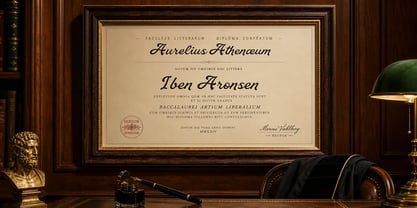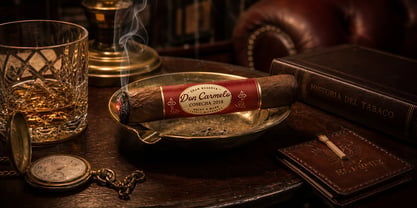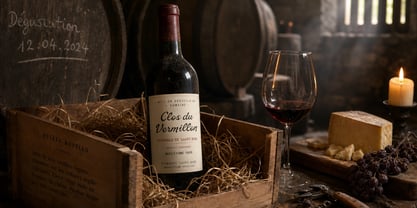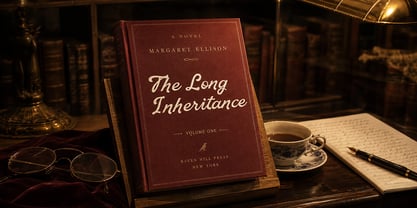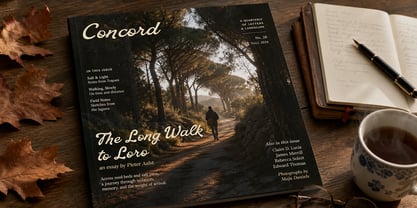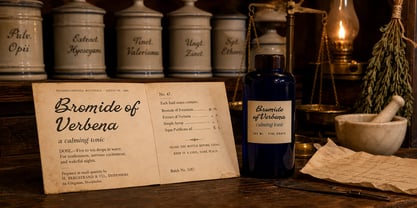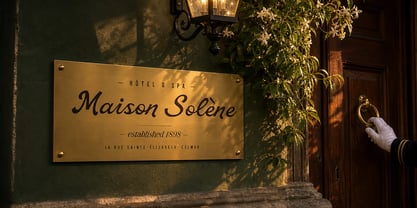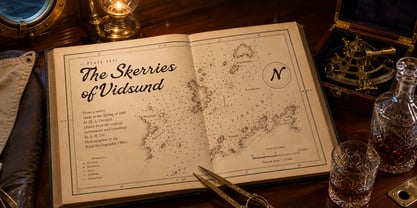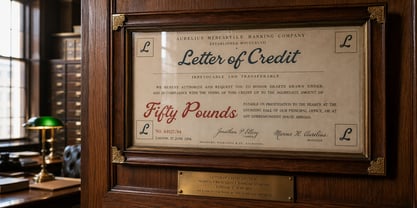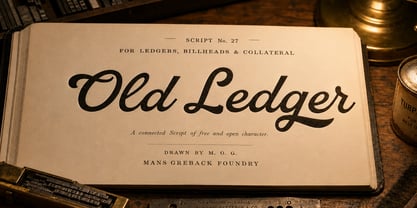
Old Ledger
Old Ledger is a connected formal script with bookish poise.
The letters move forward with a steady, unhurried hand. Connections are continuous and confident, swashes are restrained rather than ornamental, and the proportions sit close to a careful writing master's exemplar. There is a quiet authority in the forms — the script reads like ink on cotton paper, not like a flourish on a sign.
The font carries an editorial, scholarly tone. It feels at home on the title page of a leather-bound book, on a hand-printed concert programme, on the engraved face of a banknote, or on the brass plaque of an old hotel — anywhere a careful hand has set a line of text and meant it to last.
The font is built with advanced functionality and guaranteed top-notch quality, containing stylistic and contextual alternates, ligatures and more automatic and manual features; all to give you full control and customizability.
It has extensive lingual support, covering all Latin-based languages, from North Europa to South Africa, from America to South-East Asia. It contains all characters and symbols you'll ever need, including all punctuation and numbers.